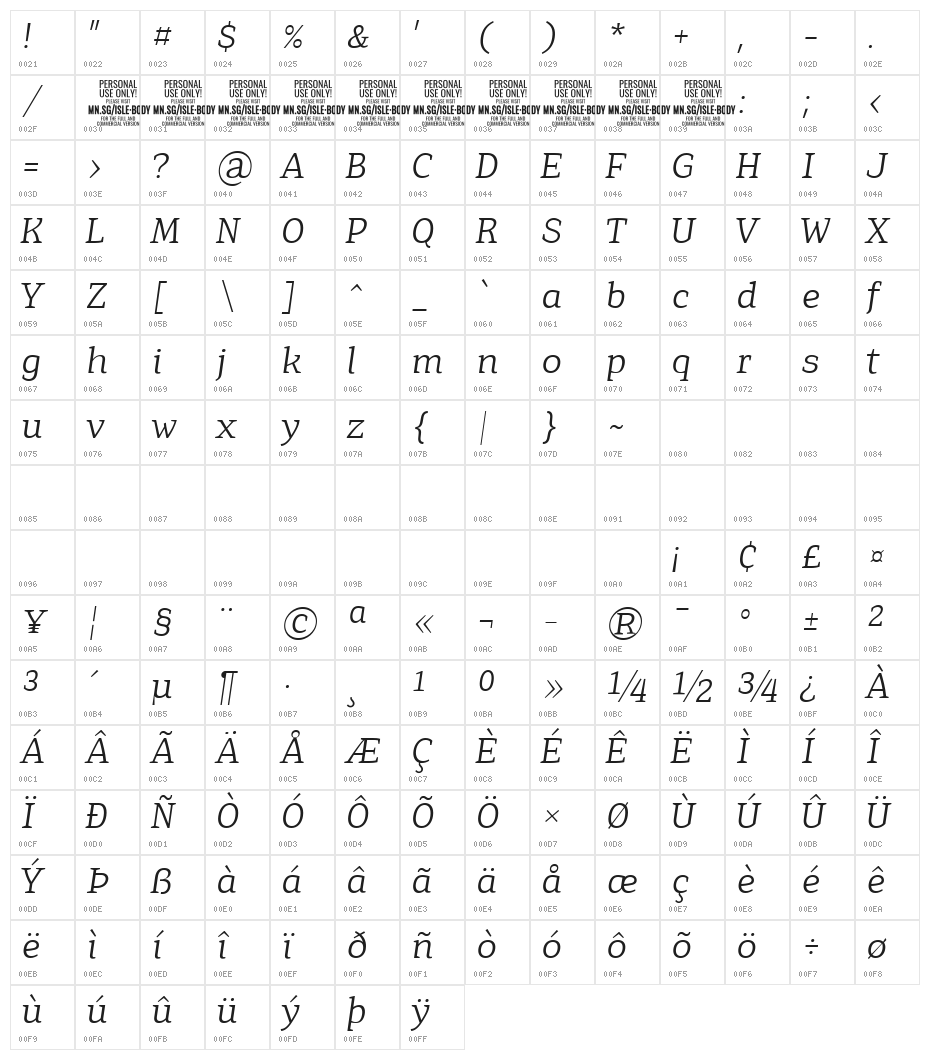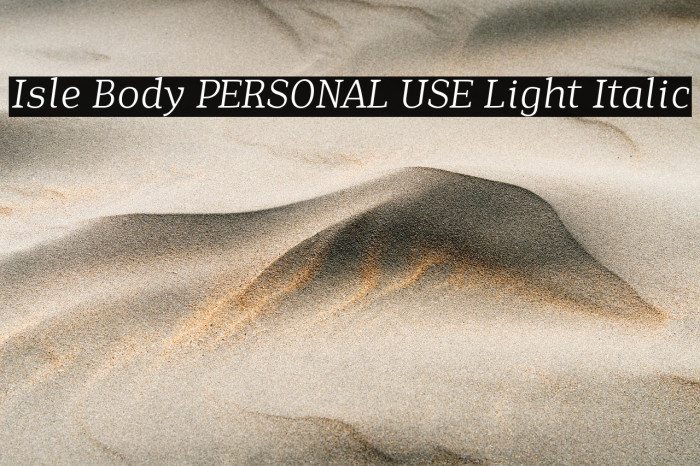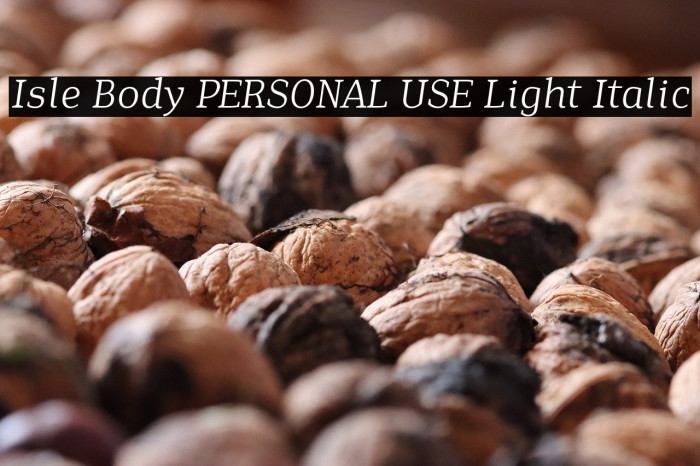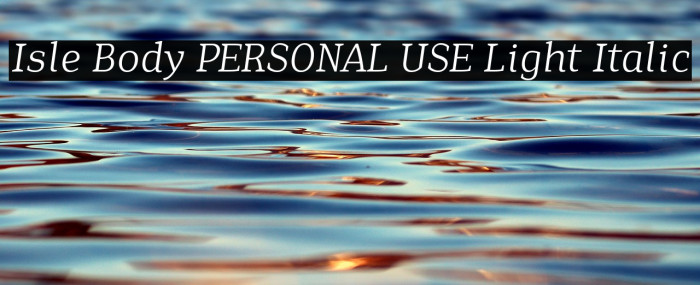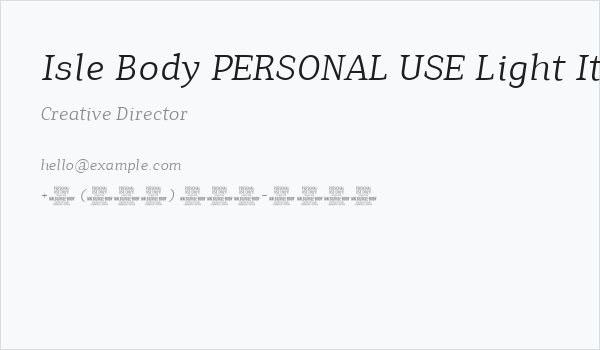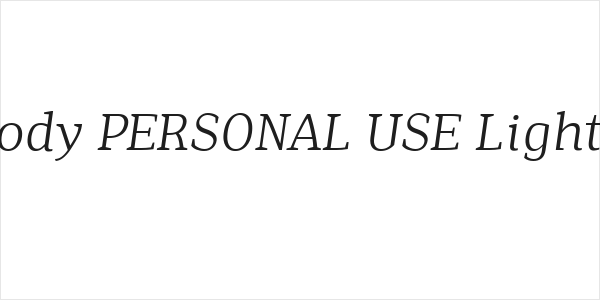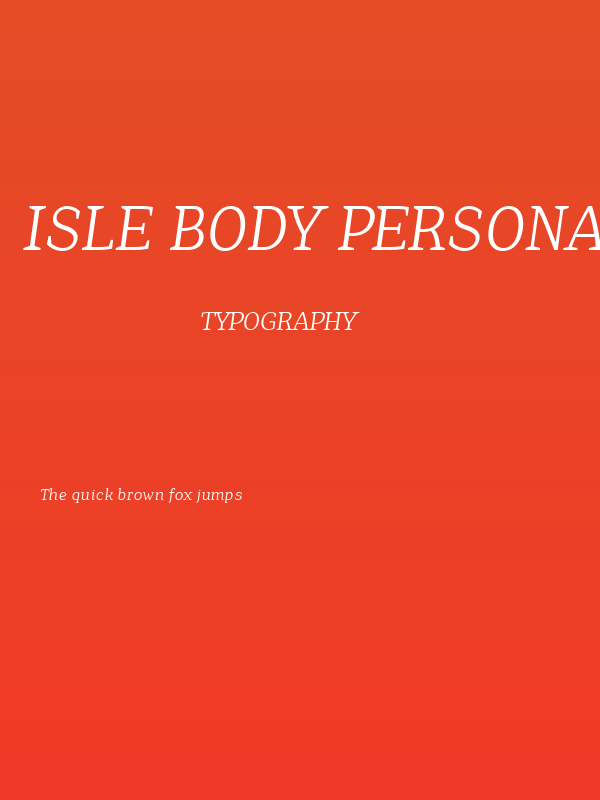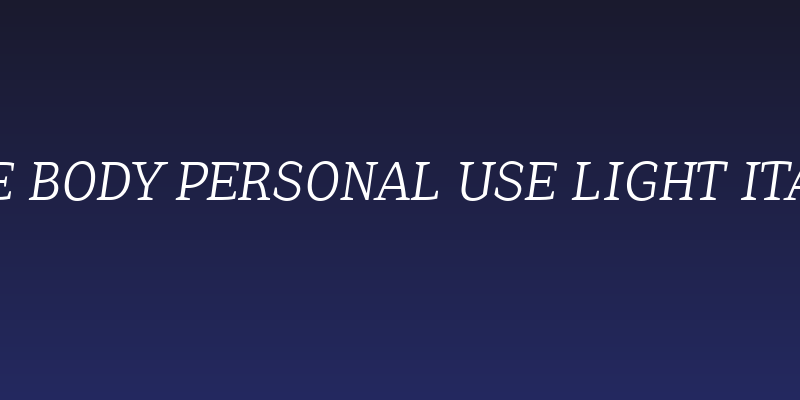
Isle Body PERSONAL USE Light Italic Font
Isle Body PERSONAL USE Light Italic Description
This font features a light and elegant design with a subtle italic slant, giving it a sophisticated and refined appearance. The characters are well-proportioned, with a gentle flow that enhances readability while maintaining a stylish aesthetic. The uppercase letters are slightly taller than the lowercase, providing a balanced contrast. The numerals and special characters are designed to complement the alphabet, ensuring consistency throughout. This font is ideal for projects that require a touch of elegance and modernity.